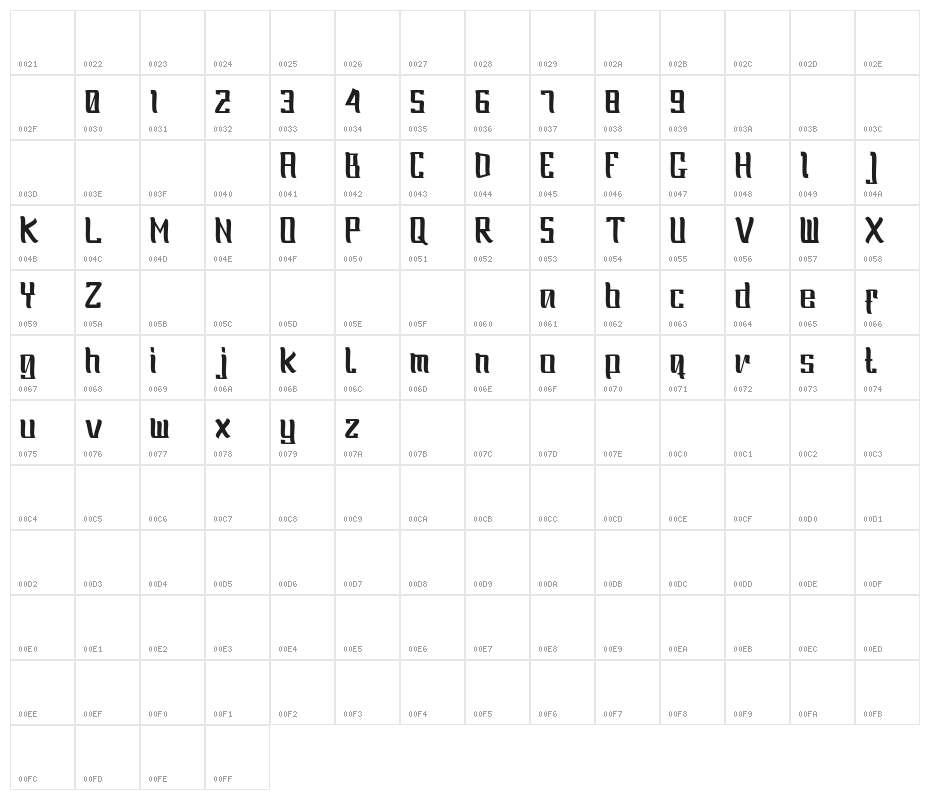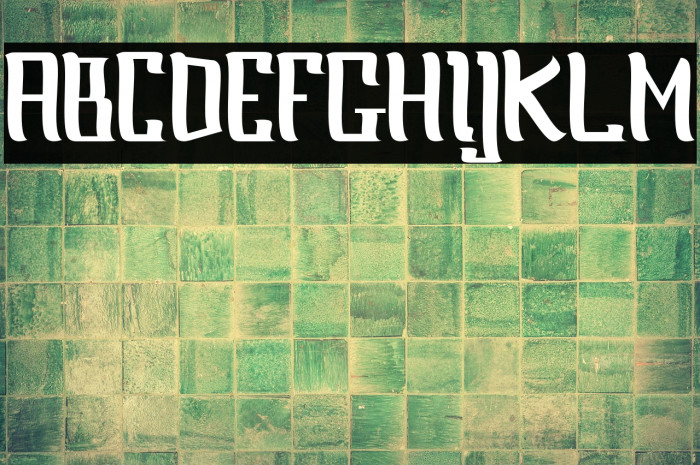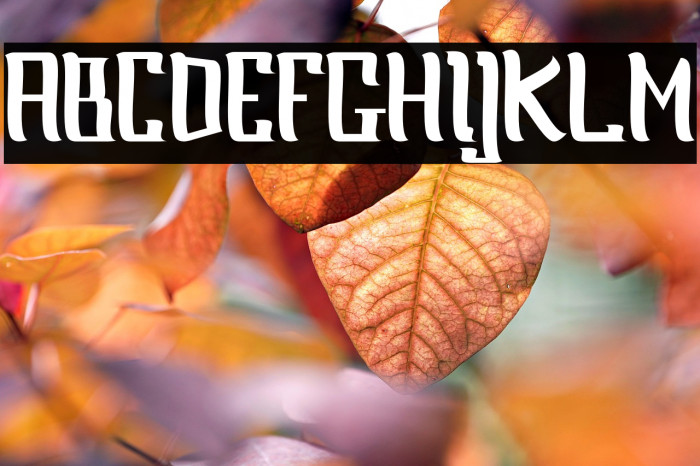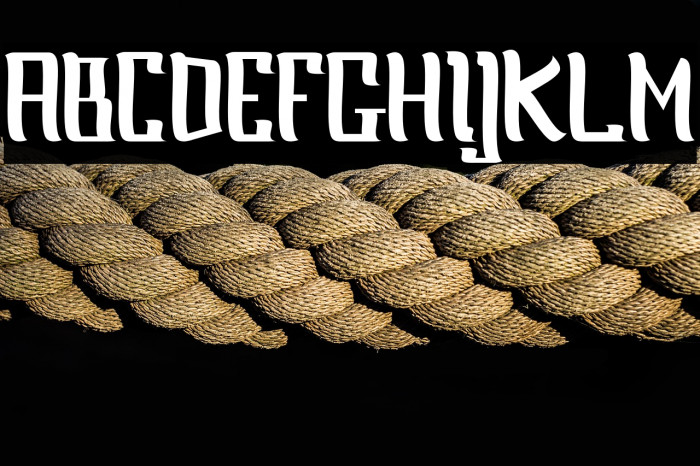
Oliver Font
Oliver Description
This font features a bold and striking design with a unique blend of modern and vintage elements. The characters are crafted with sharp edges and angular forms, giving it a distinct and edgy appearance. The uppercase letters are tall and commanding, while the lowercase letters maintain a consistent style with slightly more curves. The numerals are equally bold, ensuring they stand out in any context. The overall design is both decorative and functional, making it suitable for a variety of creative applications.
| Overall Style | Modern, Vintage |
| Proposed Projects | Ideal for branding, posters, album covers, and any project requiring a bold statement. |